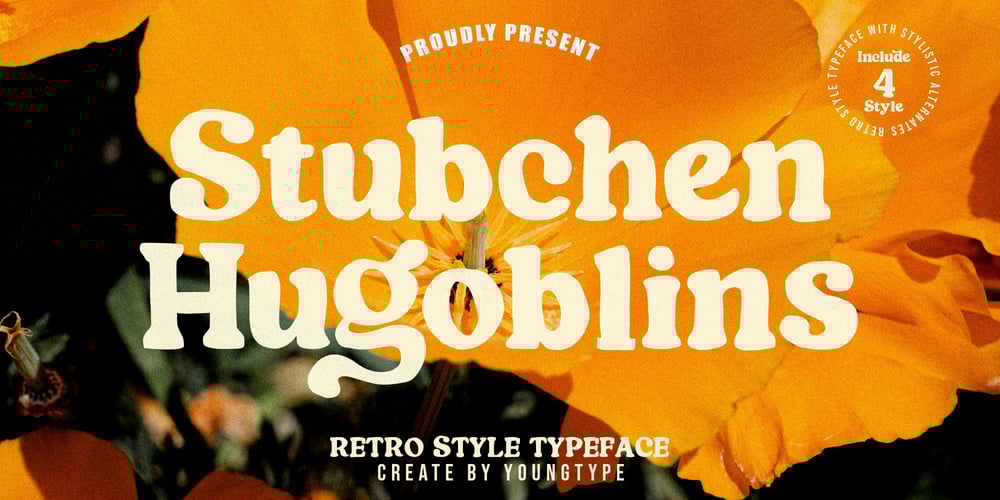
Stubchen Hugoblins Font Family was designed by Naufal Paramata and published by Youngtype. Stubchen Hugoblins contains 4 styles and family package options. Stubchen Hugoblins is a hand brush font made with brush and ink which is equipped with 4 models Regular, Italic, Outline, Italic Outline. This typeface is ideal for use in bold watercolor designs or handwritten styles, such as blog titles, posters, wedding elements, t-shirts, clothing, book covers, business cards, greeting cards, branding, merchandise, etc.Contains full set :UppercaseLowercaseLigaturesAlternatesPunctuationnumbermultilingual support.Thank you!